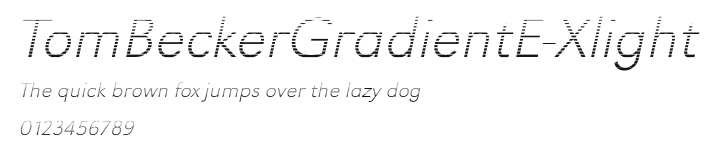
TomBeckerGradientE-Xlight Preview
• Font Name: TomBeckerGradientE-Xlight
• Font ID: Alts:TomBeckerGradientE-Xlight-Italic
• Full Font Name: TomBeckerGradientE-Xlight-Italic
• PostScript Name: TomBeckerGradientE-Xlight-Italic
About TomBeckerGradientE-Xlight.ttf
TomBeckerGradientE-Xlight.ttf is a modern, elegant sans-serif font designed for ultimate readability and visual harmony. Perfect for branding, headlines, web design, and print materials.